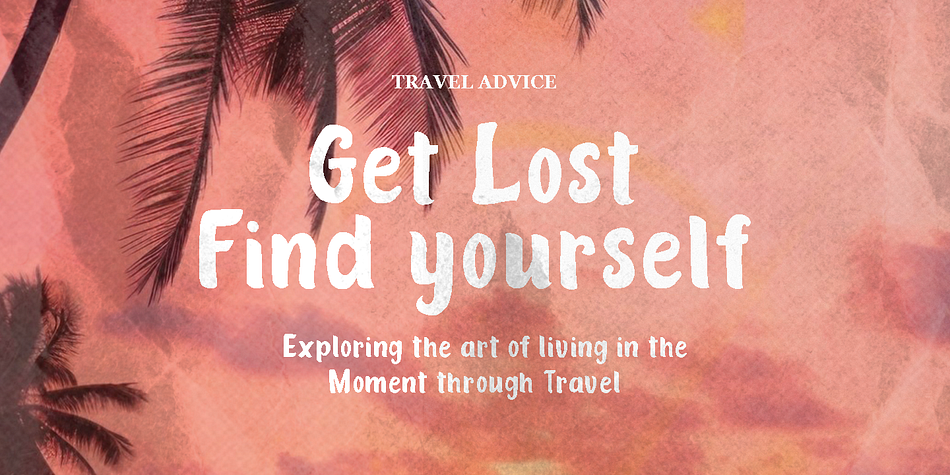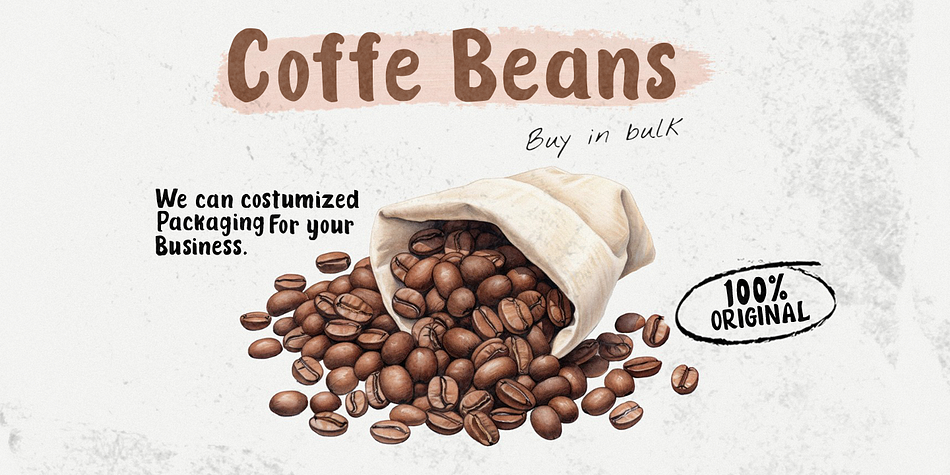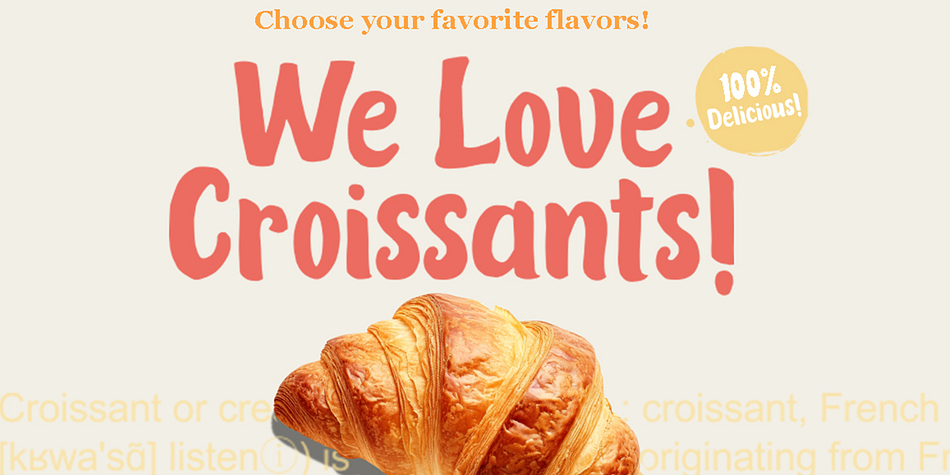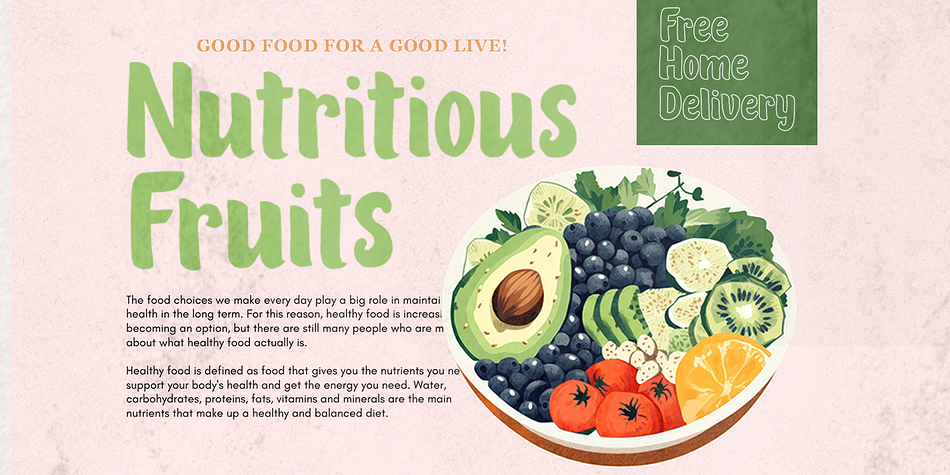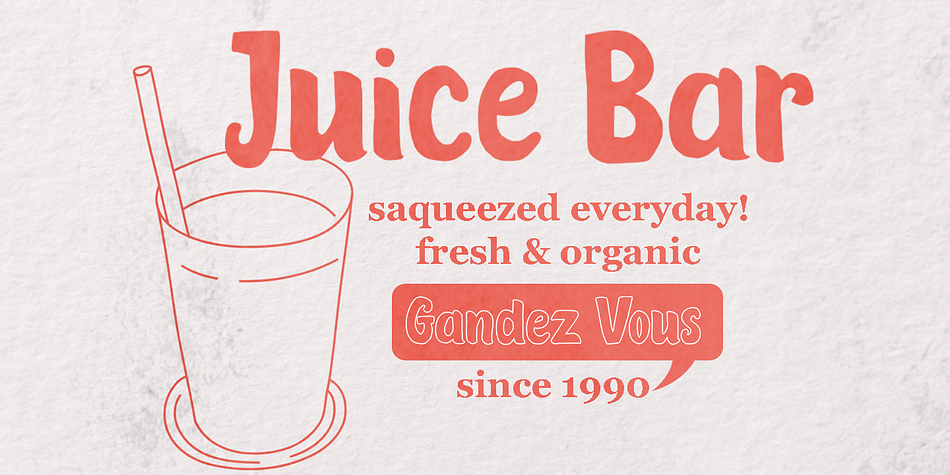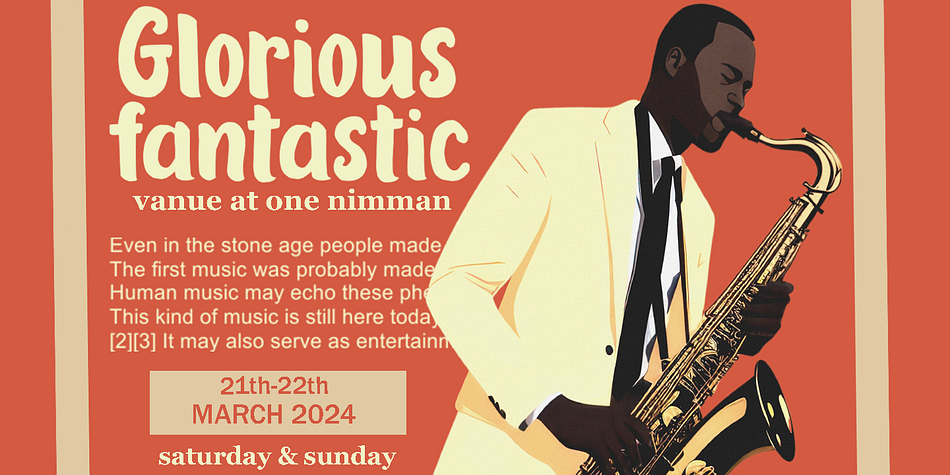
Fantastic Material
Fantastic Material is a display font family. This typeface has two styles and was published by Youngtype Studio.
Materials Fantastic & Materials Fantastic Outline is a hand brush font made with brushes and ink. This typeface is ideal for use in thick watercolor designs or handwriting styles, such as blog titles, posters, wedding elements, t-shirts, clothing, book covers, business cards, greeting cards, branding, merchandise etc.
Contains full set :
Uppercase
Lowercase
Ligatures
Punctuation
number
multilingual support.